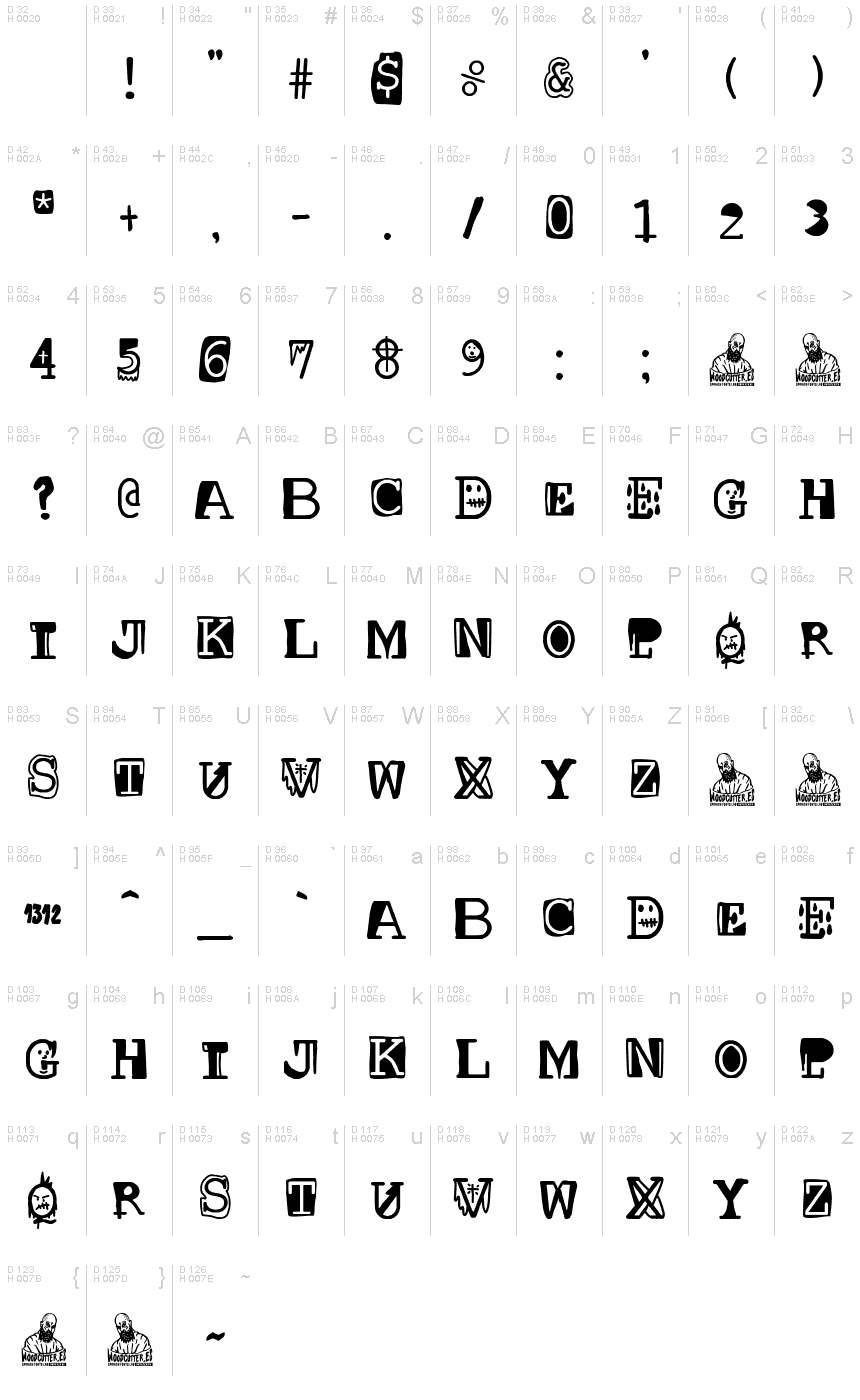
Courier punk Version
Courier Punk Version, designed by Woodcutter, is a captivating display font with a distorted style that adds rebellious flair to any project.
Its edgy and unconventional design makes it perfect for album covers, music posters, and streetwear logos. With its bold and gritty appearance, Courier Punk Version is also well-suited for urban photography portfolios and underground event invitations. Stand out from the crowd with this unique font that embodies the spirit of nonconformity and urban subcultures.